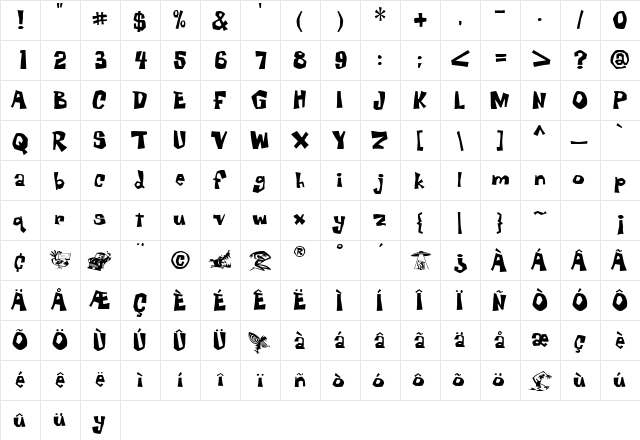
Whutevur Regular
Design Context for Whutevur Typeface
Whutevur is a composed and adaptable typeface that performs quietly and consistently across a wide range of design contexts.